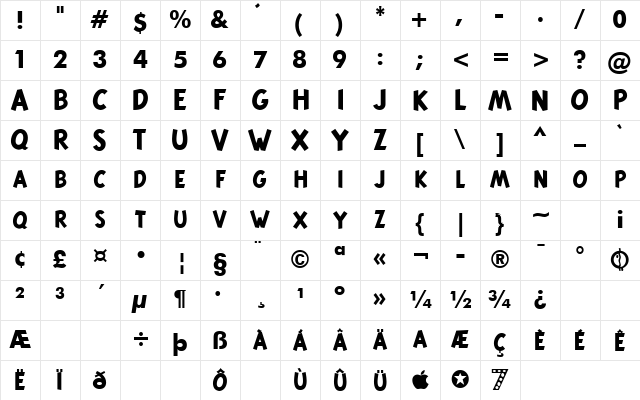
Tintin Majuscules Bold
Design Context for Tintin Majuscules
Tintin Majuscules is a composed and adaptable typeface that performs quietly and consistently across a wide range of design contexts. Its bold stroke weight gives it real presence on the page.